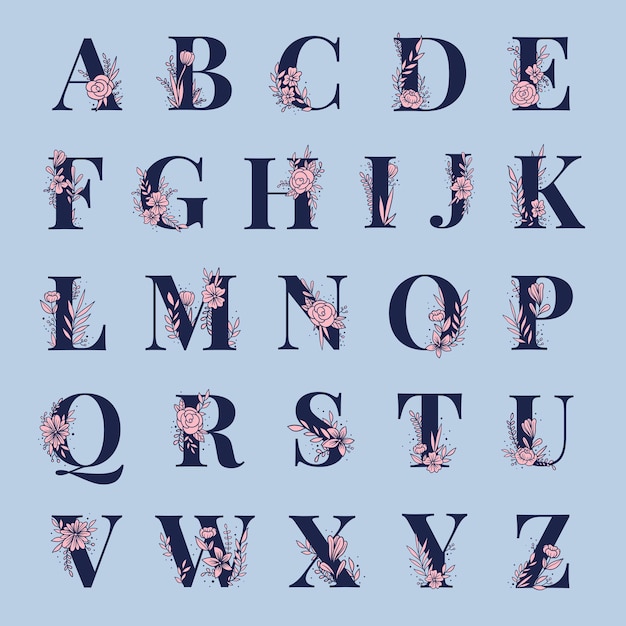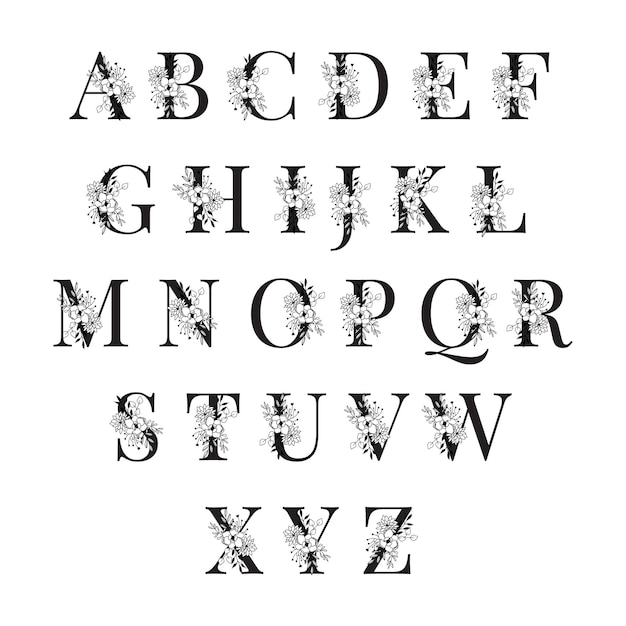
Floral ornate letters. Ornamental flowers monogram, vintage font and flower sprigs ornaments alphabet   illustration set
Floral ornate letters. Ornamental flowers monogram, vintage font and flower sprigs ornaments alphabet illustration set